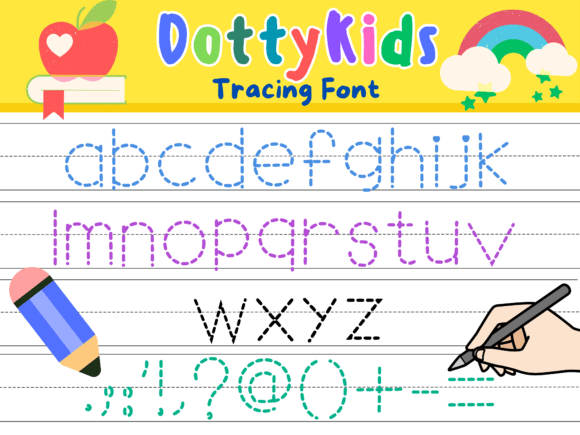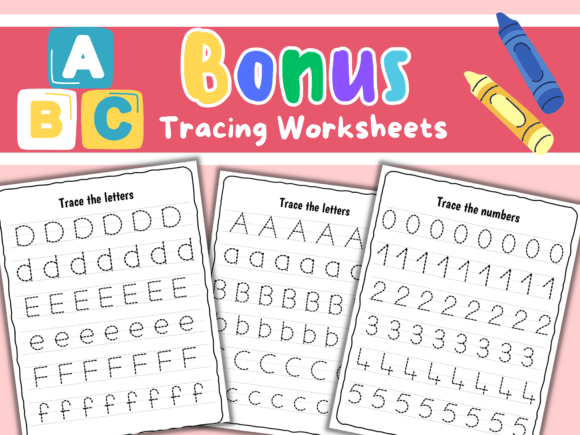
Dotty Kids Font: A Fun and Educational Font for Children’s Learning Materials
Are you a designer, crafty individual, or educator looking for a font that can add a playful touch to your children’s learning materials? Look no further than the Dotty Kids Font! This delightful font is specifically designed to make learning fun and engaging for kids, making it an ideal choice for educational settings, including classrooms, homeschooling environments, and tutoring sessions.
What is Dotty Kids Font?
Dotty Kids Font is a unique and charming font that features dotted letters and numbers, making it perfect for worksheets, activity books, and other learning materials. The font is designed to help children develop their literacy and numeracy skills in a fun and interactive way. The dotted letters and numbers provide a guide for kids to practice writing and drawing, making it an excellent tool for early childhood education.
Benefits of Using Dotty Kids Font
The Dotty Kids Font offers several benefits for educators, designers, and parents, including:
- Improved Literacy and Numeracy Skills: The font’s dotted letters and numbers help children develop their writing and drawing skills, making it easier for them to learn and retain information.
- Enhanced Engagement: The playful and colorful design of the font makes learning materials more engaging and fun for kids, increasing their motivation to learn.
- Versatility: The Dotty Kids Font can be used in a variety of educational settings, including worksheets, activity books, posters, and more.
- Easy to Read and Write: The font is designed to be easy to read and write, making it perfect for early childhood education.
How to Use Dotty Kids Font
The Dotty Kids Font is easy to use and can be incorporated into various educational materials, such as:
- Worksheets: Create worksheets with dotted letters and numbers for kids to practice writing and drawing.
- Activity Books: Design activity books that feature the Dotty Kids Font, including mazes, puzzles, and games.
- Posters and Charts: Use the font to create colorful posters and charts that display important information, such as alphabet charts and number lines.
- Learning Materials: Incorporate the Dotty Kids Font into learning materials, such as flashcards, vocabulary lists, and math problems.
Design and Crafting Applications
The Dotty Kids Font is not only limited to educational settings but can also be used in various design and crafting applications, such as:
- Scrapbooking: Add a playful touch to your scrapbooking projects with the Dotty Kids Font.
- Card Making: Create fun and colorful cards for kids using the Dotty Kids Font.
- DIY Projects: Use the font to create DIY projects, such as signs, banners, and decorations.
The Dotty Kids Font is an excellent choice for designers, crafters, and educators looking to create engaging and interactive learning materials for kids. Its unique and playful design makes it perfect for use in various educational settings, including classrooms, homeschooling environments, and tutoring sessions. With its versatility and ease of use, the Dotty Kids Font is sure to become a favorite among educators and designers alike.